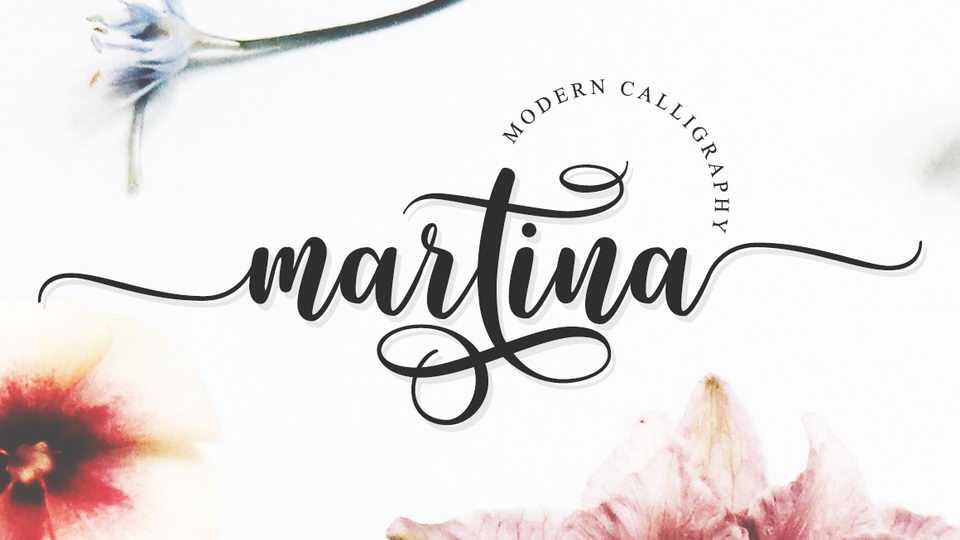
Download Martina font, a cute and fresh calligraphy script. Martina is great for greeting cards, branding materials, business cards, quotes, posters, and more!
Designer: Suby Studio